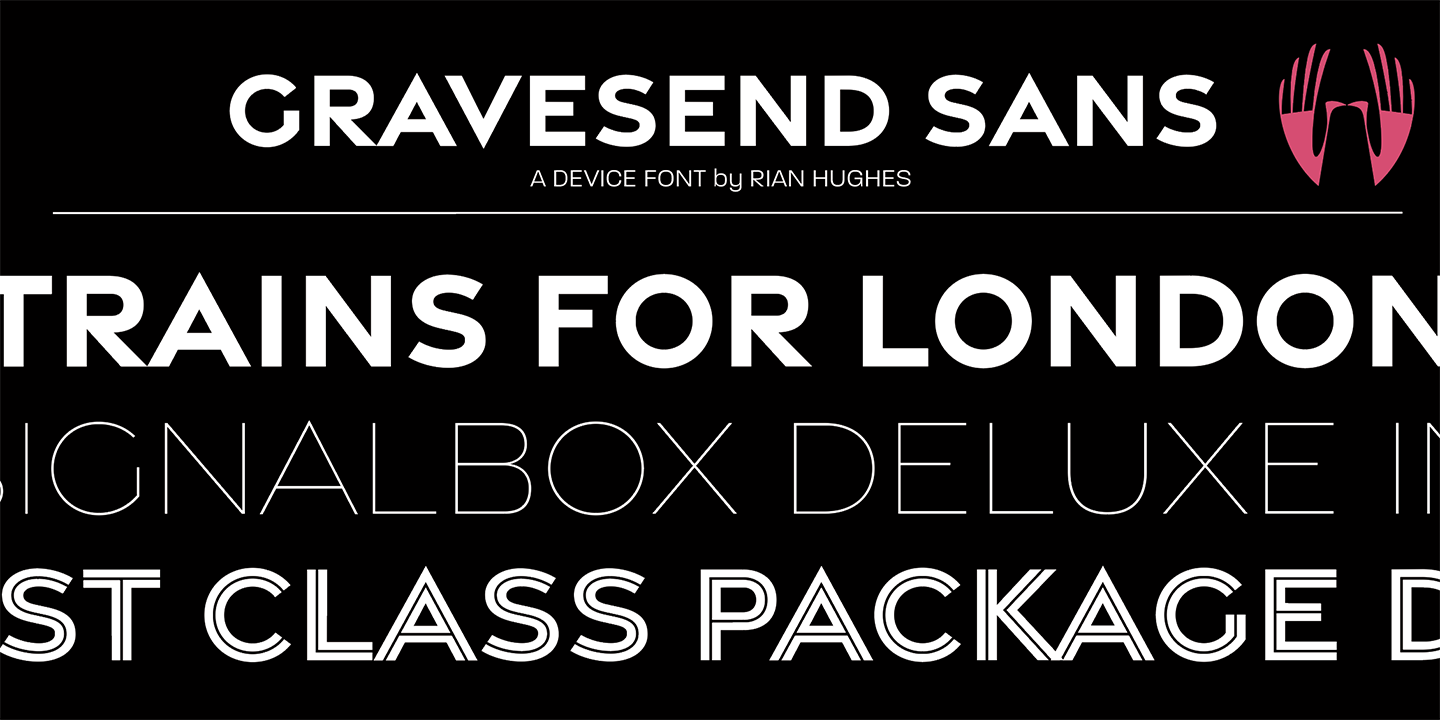
Gravesend Sans Font is perfect for maritime industry branding, port authority materials, shipping company communications, coastal business identities, nautical heritage museums, dock worker union graphics, industrial waterfront signage, maritime education resources, harbor management systems, and seaside community publications.
Gravesend Sans Font is exciting because it embodies the working-class strength and maritime heritage of historic port communities through its robust, harbor-tested letterforms that communicate reliability and seafaring tradition while delivering messages with industrial authenticity and dockside determination.
Gravesend Sans Font family includes Regular, Bold, Light, Industrial, Italic, Condensed, Harbor, and Dock variations, providing designers with a complete maritime toolkit to create authentic visual communications that honor working waterfront traditions and celebrate the strength of port communities across nautical applications.
Gravesend Sans Font represents the backbone of maritime commerce and working waterfront culture, making it an essential choice for businesses and organizations connected to shipping, port operations, and the hardworking communities that keep global trade flowing through the world's harbors. This industrious typeface brings maritime authenticity to any design project, whether you're developing shipping company identities, creating port authority materials, or designing educational resources about maritime heritage. The sturdy, dock-worthy character design of Gravesend Sans Font Free Download ensures maximum durability while maintaining excellent readability across both harsh maritime environments and digital platforms serving the global shipping industry and waterfront communities.
Maritime industry professionals consistently select Gravesend Sans Font for shipping companies, port authorities, and maritime service providers because of its ability to communicate reliability, industrial strength, and deep connection to seafaring traditions. The font's robust appearance makes it particularly effective for targeting maritime professionals and creating brand experiences that emphasize dependability and working-class values.
Gravesend Sans Font excels in industrial and transportation environments where durability and clear communication are essential for operational safety. Longshoremen unions, maritime equipment manufacturers, and shipping logistics companies rely on this font to create materials that reflect the serious nature of maritime commerce and harbor operations.
The education and heritage sectors have embraced Gravesend Sans Font for maritime museums, shipping history exhibits, and waterfront community organizations. Its authentic visual character helps institutions create communications that honor the working traditions of port communities, appealing to audiences interested in maritime heritage and the cultural significance of working waterfronts in global commerce.